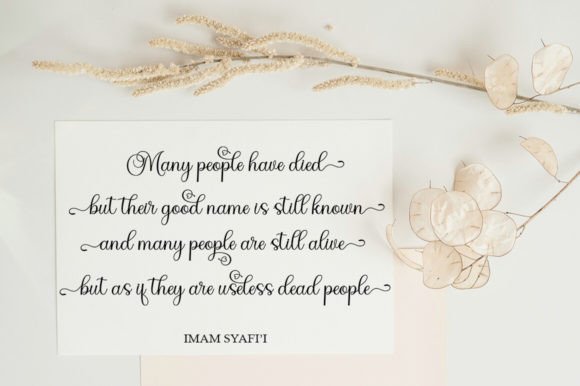
Melinda Font
Melinda Script Calligraphy Font is a modern typeface, each letter has been carefully crafted to make your text look beautiful. With a modern script style, this font will be suitable for a variety of projects, for example: weddings, invitations, greeting cards, posters, business cards, quotes, blog headers, branding, logos, fashion, clothing, letters, stationery, etc.
Sadhira Manuscript Calligraphy fonts include alternate glyphs and beautiful swirls in fonts including style sets, Ligatures, etc.